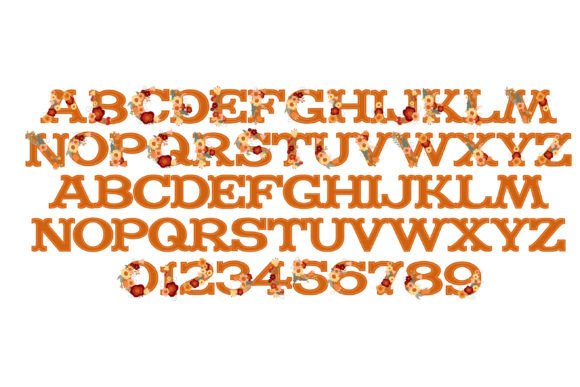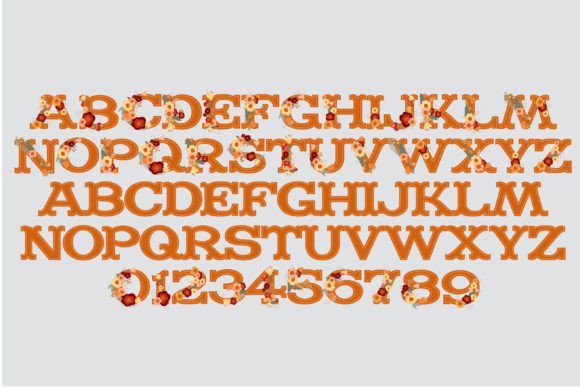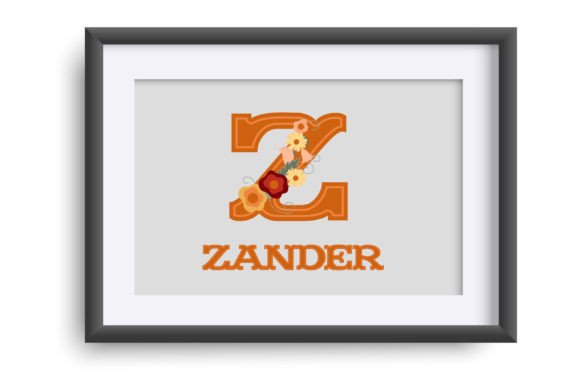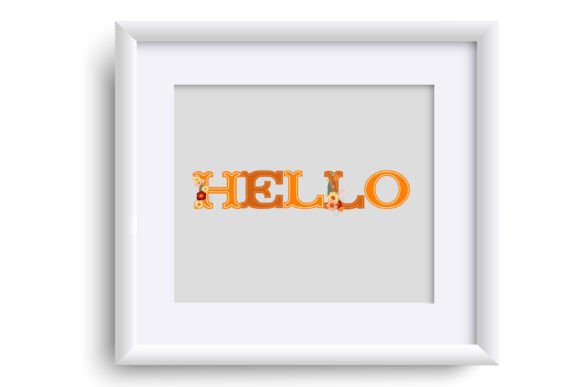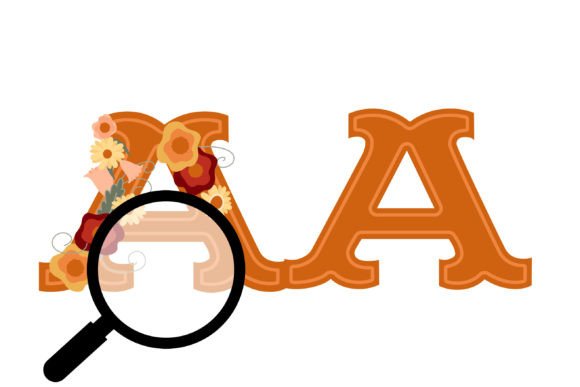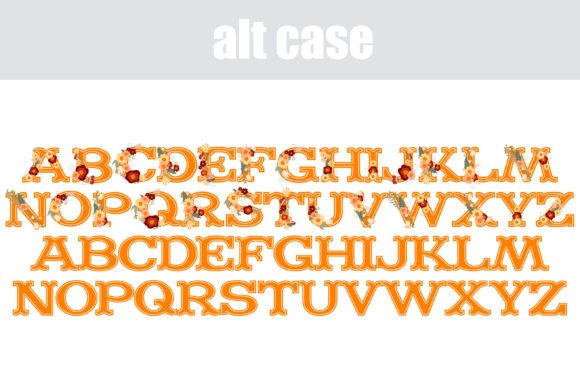
Introducing Fall Fly Font: Add a Touch of Autumn to Your Designs
Are you looking for a unique and playful font to add a touch of autumn to your designs? Look no further than Fall Fly Font, a full-color font featuring beautiful lettering with flowers in a stunning autumn color palette. This gorgeous font is perfect for designers and crafters who want to create eye-catching and personalized designs for the fall season.
What Makes Fall Fly Font Special?
Fall Fly Font is a full-color OpenType (SVG) font that features playful lettering with flowers in a gorgeous autumn color palette. The font includes an alternative version of each letter in a different color, which can be accessed through your system character map. This means you can mix and match different colors to create unique and personalized designs.
The Benefits of Full-Color SVG Fonts
Full-color SVG fonts like Fall Fly Font offer a range of benefits for designers and crafters. With a full range of colors and styles to choose from, you can create anything from simple text logos to complex and intricate designs. These fonts are perfect for adding a touch of personality to your designs and making them stand out from the crowd.
Tips and Ideas for Using Fall Fly Font
So, how can you use Fall Fly Font in your designs? Here are a few ideas to get you started:
- Create a beautiful fall-themed logo or branding for your business
- Design a stunning invitation or greeting card for a special occasion
- Make a gorgeous DIY craft project, such as a customized tote bag or mug
- Add a touch of autumn to your website or social media graphics
The possibilities are endless, and with Fall Fly Font, you can add a touch of personality and whimsy to any design.
Fall Fly Font is a unique and beautiful full-color font that’s perfect for designers and crafters who want to add a touch of autumn to their designs. With its playful lettering and gorgeous autumn color palette, this font is sure to make your designs stand out. Whether you’re creating a logo, invitation, or DIY craft project, Fall Fly Font is the perfect choice. So why wait? Download Fall Fly Font today and start creating stunning designs that capture the essence of the fall season.